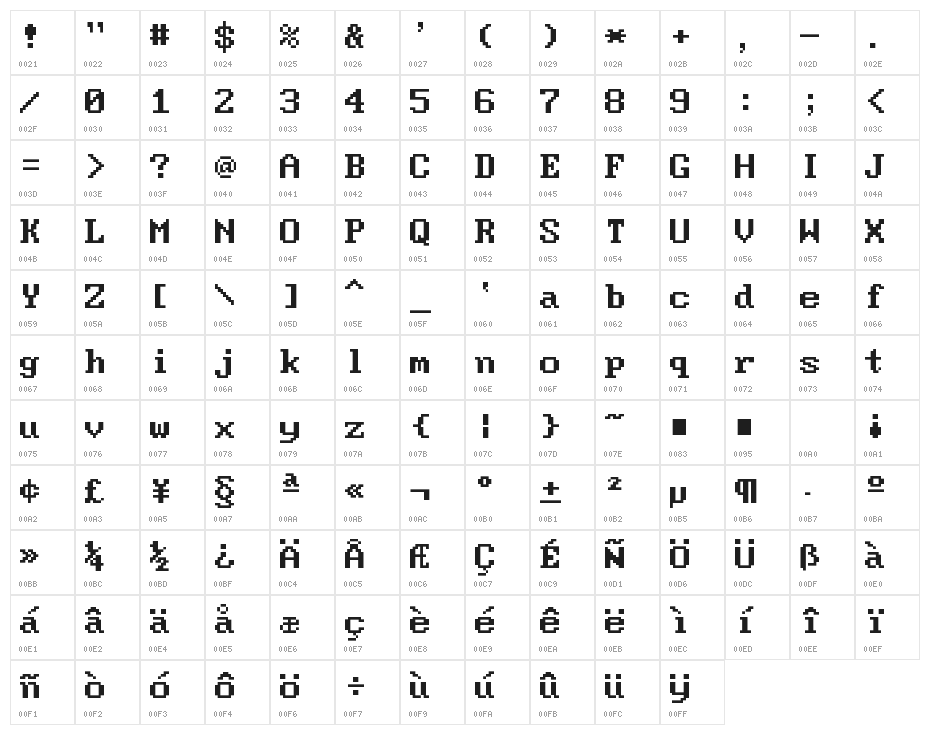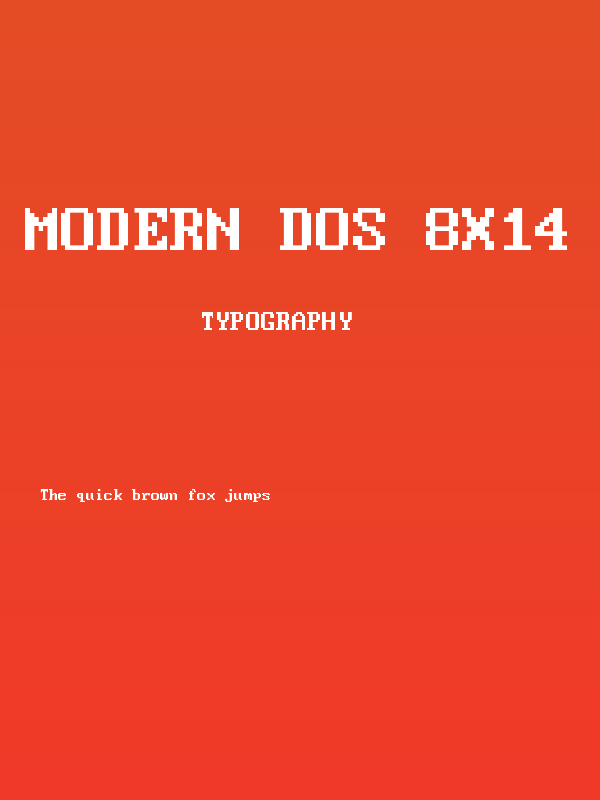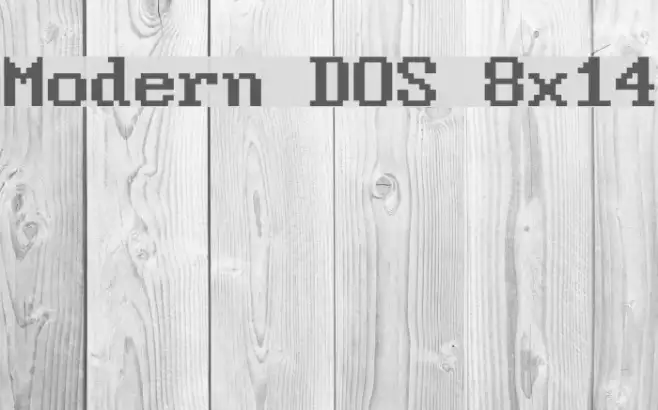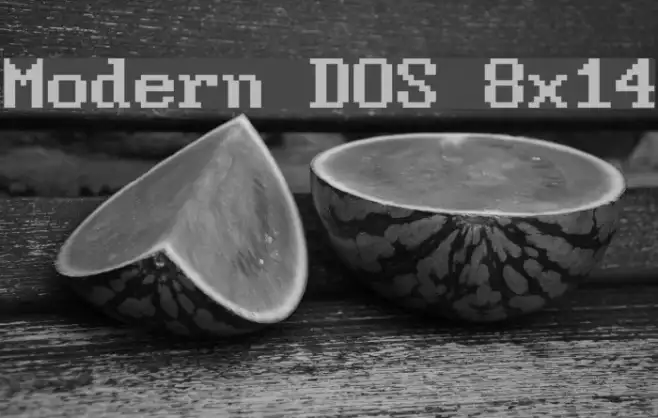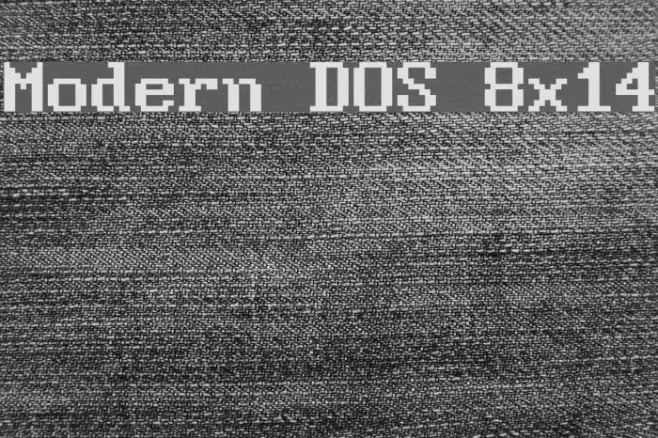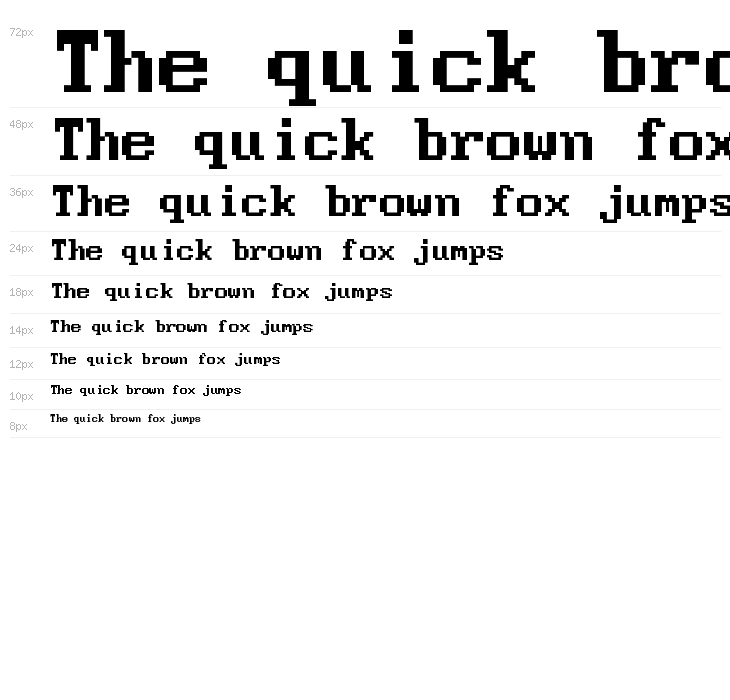
Modern DOS 8x14 Font
Modern DOS 8x14 Description
This font is a pixelated, monospaced typeface reminiscent of classic DOS and early computer terminal displays. Each character is constructed with a grid-like precision, featuring blocky, square edges that evoke a sense of nostalgia for retro computing. The uppercase and lowercase letters maintain a consistent height, contributing to its uniform appearance. Numbers and special characters are similarly designed, ensuring clarity and readability even at small sizes. This typeface is ideal for projects that aim to capture the essence of vintage technology or require a digital, old-school aesthetic.
| Use Case | Headlines, Coding, Digital Art |
| Proposed Projects | Ideal for retro-themed designs, coding environments, and digital art projects that require a vintage computer aesthetic. |